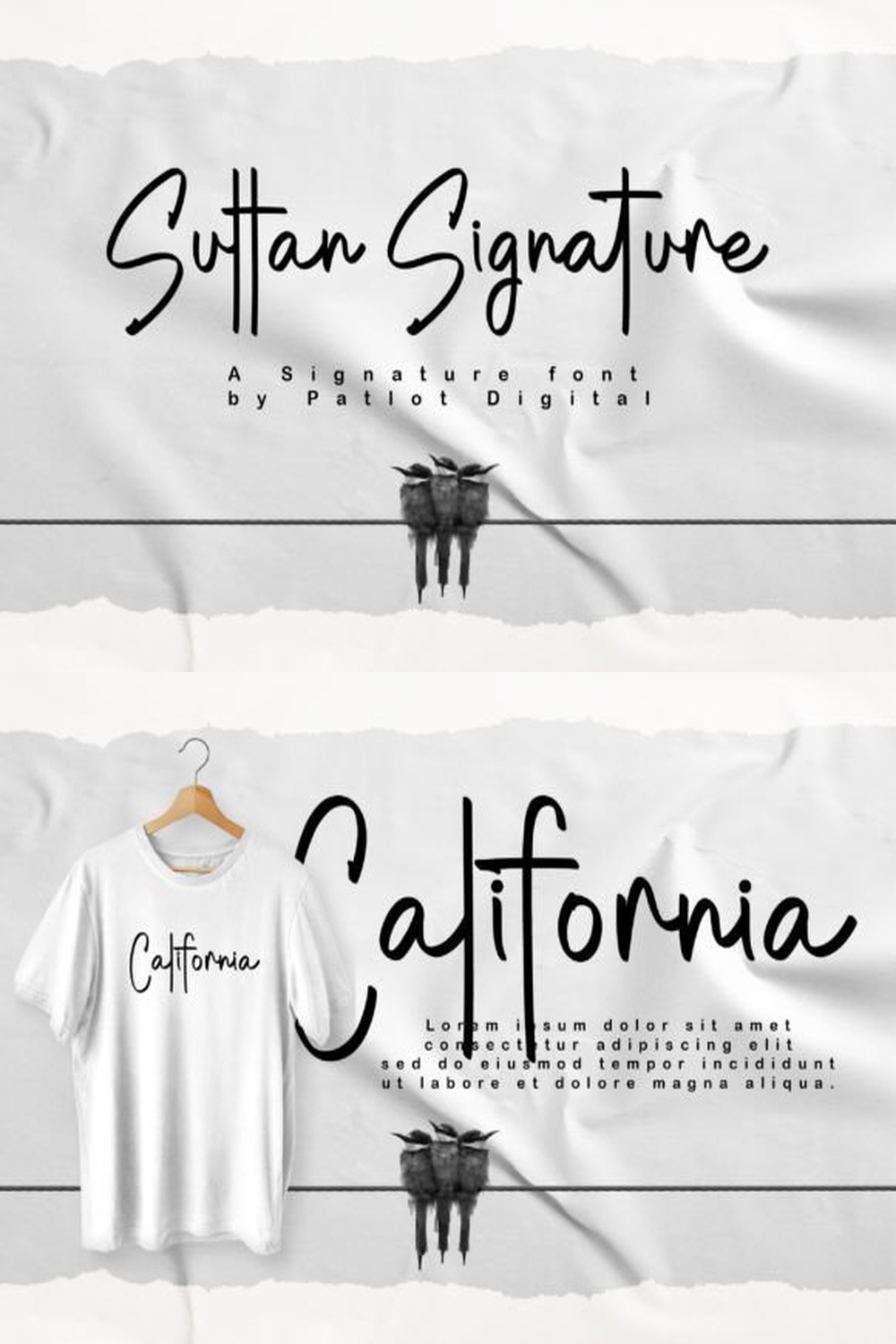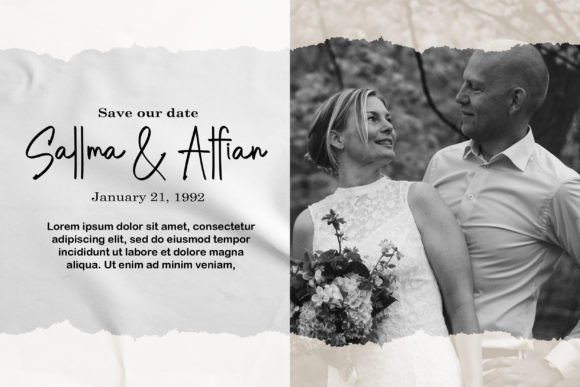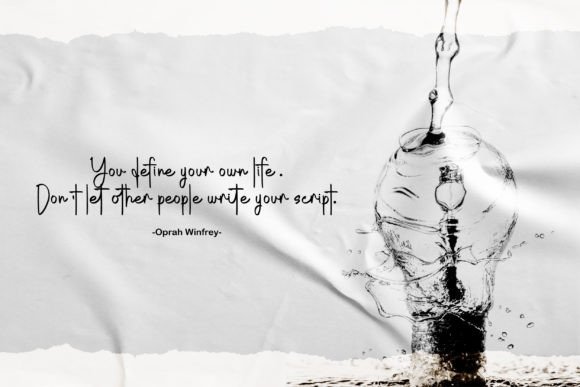
Sultan Signature Font
About the Sultan Signature Font
The wait is over! The incredible Sultan Signature Font is now available for your design toolkit. Sultan Signature is a charming handwritten font, perfect for wedding greetings, photography watermarks, signatures, modern websites, and more.